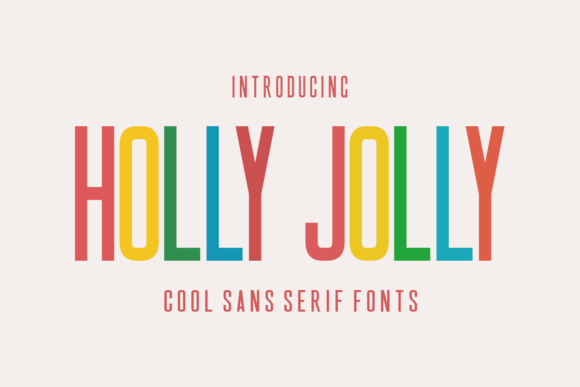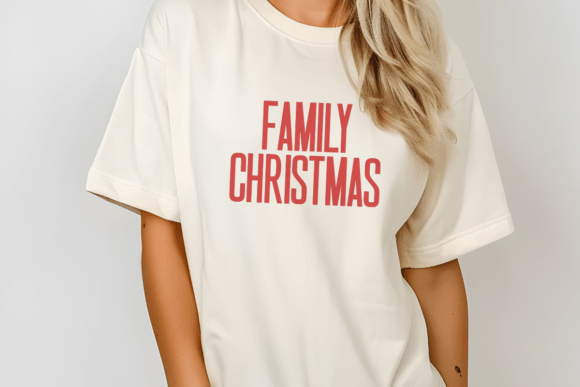
Holly Jolly Font
Holly Jolly is a cool sans serif font with a stunning vintage feel. It’s perfect for logos, t-shirts, mugs, invitations, greeting cards, branding, posters, packaging, signs, cutting boards, printables, crafting, and other designs. Whatever your creative needs are, Holly Jolly is the perfect choice for a modern yet simple design!